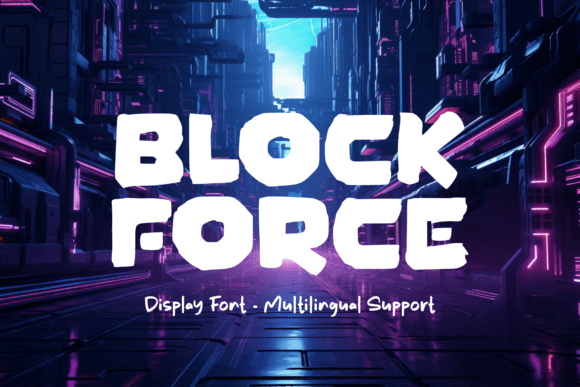
Welcome to the realm of Block Force Font, a captivating display font family crafted by DUMADI to inject boldness and strength into your creative endeavors. Block Force is not just a font; it's an expression of raw power and unyielding determination.
Embark on a journey where your words will command attention, where your designs will emanate an aura of confidence, and where your message will resonate with undeniable impact. Block Force is the font that turns your words into visual thunderbolts, leaving an indelible mark on the minds of your audience.
Immerse yourself in the world of Block Force, where each letter is a testament to the beauty of unyielding strength. The haphazardly placed lines and the rugged appearance of this font evoke a sense of raw energy, capturing the essence of untamed power.
With Block Force, you have a font that's as versatile as it is captivating. Its bold and stout style lends itself perfectly to a myriad of design projects, from striking headlines to eye-catching social media posts. Unleash your creativity and let Block Force amplify your message, making it resonate with power and determination.
Harness the strength of Block Force to create designs that exude an aura of authority and confidence. Whether you're crafting a poster that demands attention, a logo that commands respect, or a website that exudes professionalism, Block Force is your font of choice.
Join the ranks of creative visionaries who have embraced Block Force to elevate their designs to new heights. Discover the power of simplicity and the impact of bold statements. With Block Force, your words will carry the weight of unwavering determination, leaving an unforgettable impression on your audience.
Embrace Block Force today and unlock a world of creative possibilities. Let your designs radiate strength, confidence, and an unyielding spirit. Block Force is more than a font; it's a statement of power that will transform your designs into works of art.